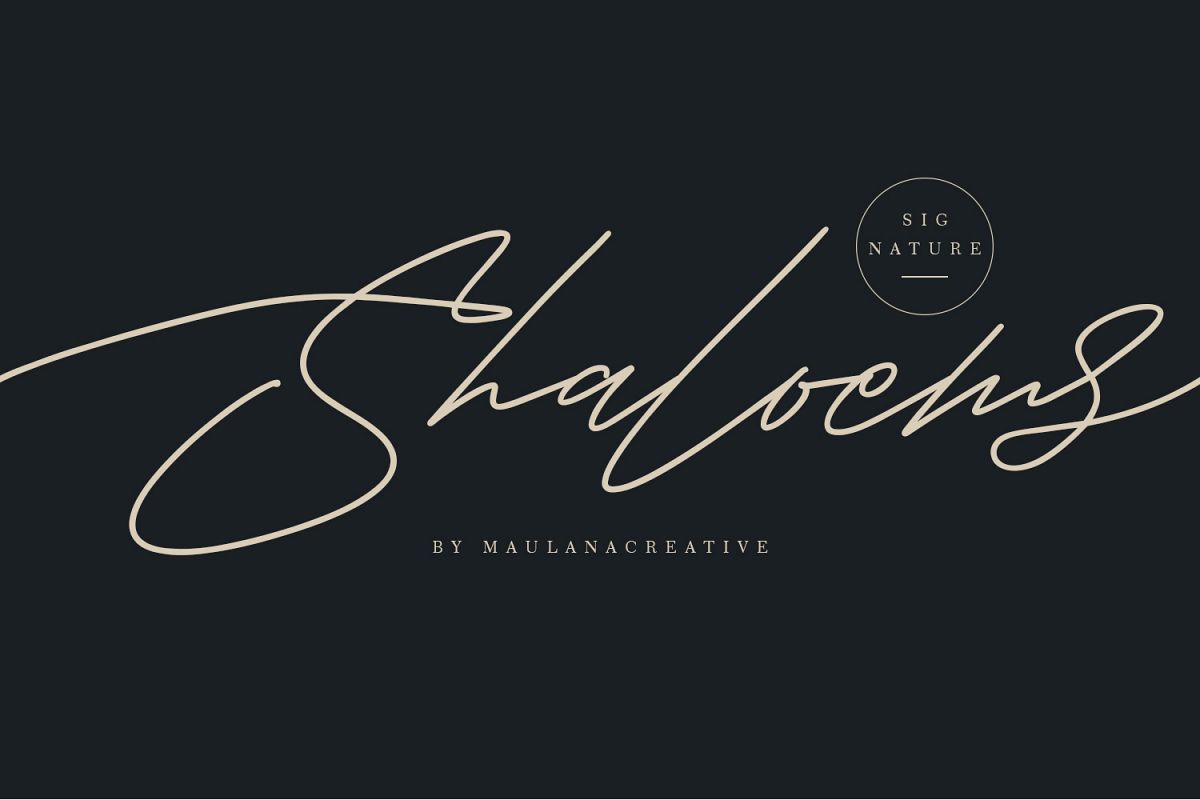
Give your designs an authentic handcrafted feel. "Shaloems Handwritten Signature Font" is perfectly suited to signature, stationery, logo, typography quotes, magazine or book cover, website header, clothing, branding, packaging design and more. Included Ligatures. This font available on OTF, TTF and Web Font formats. Thanks for use this font